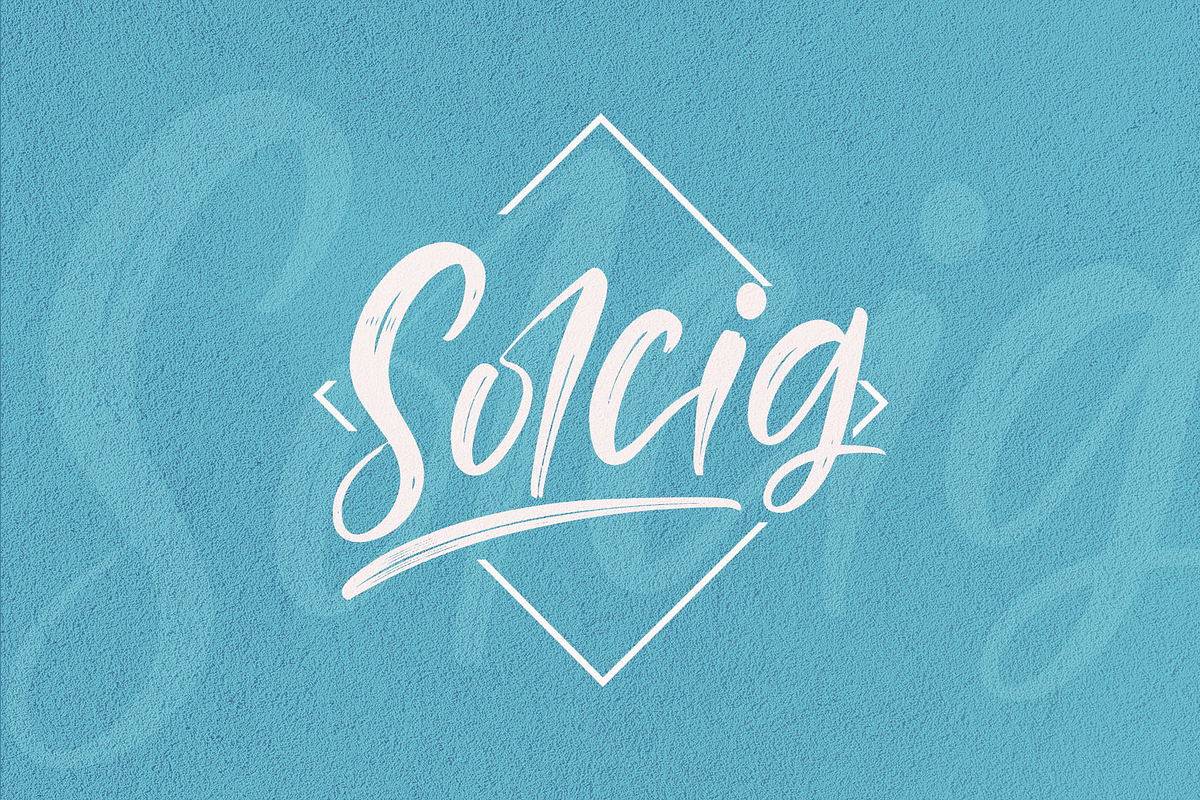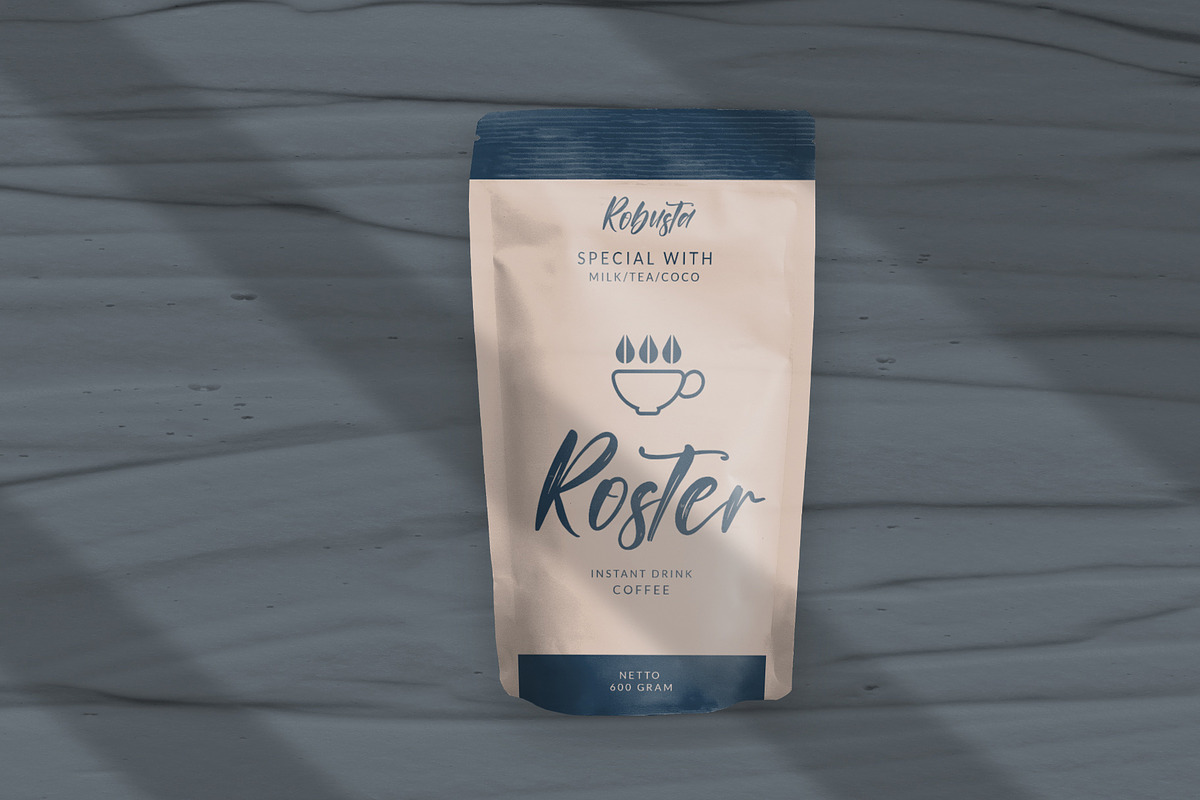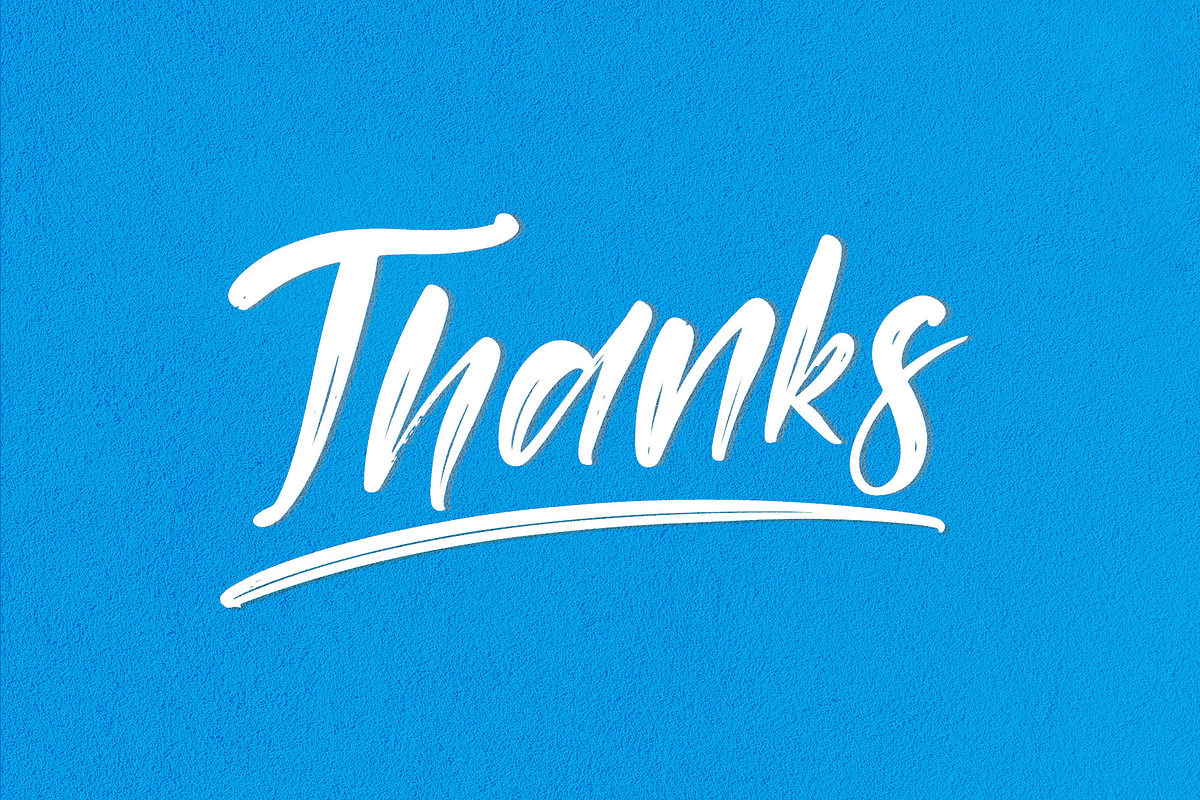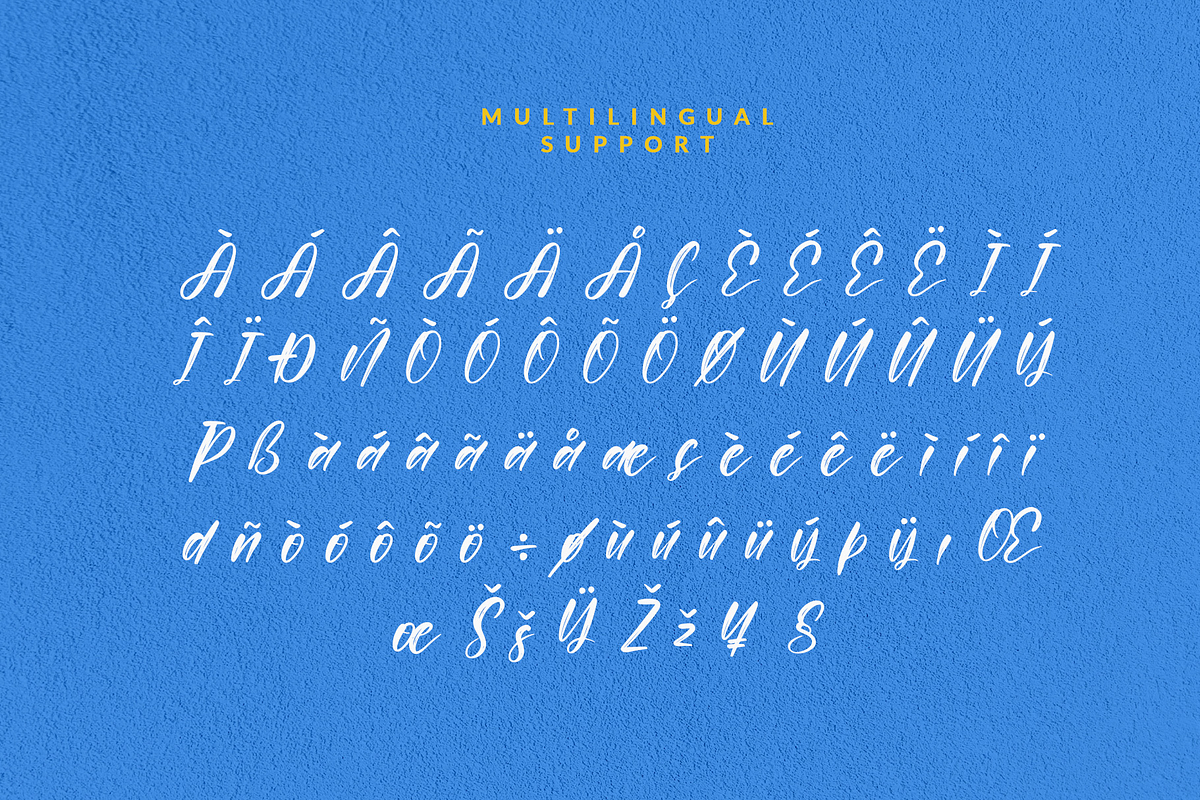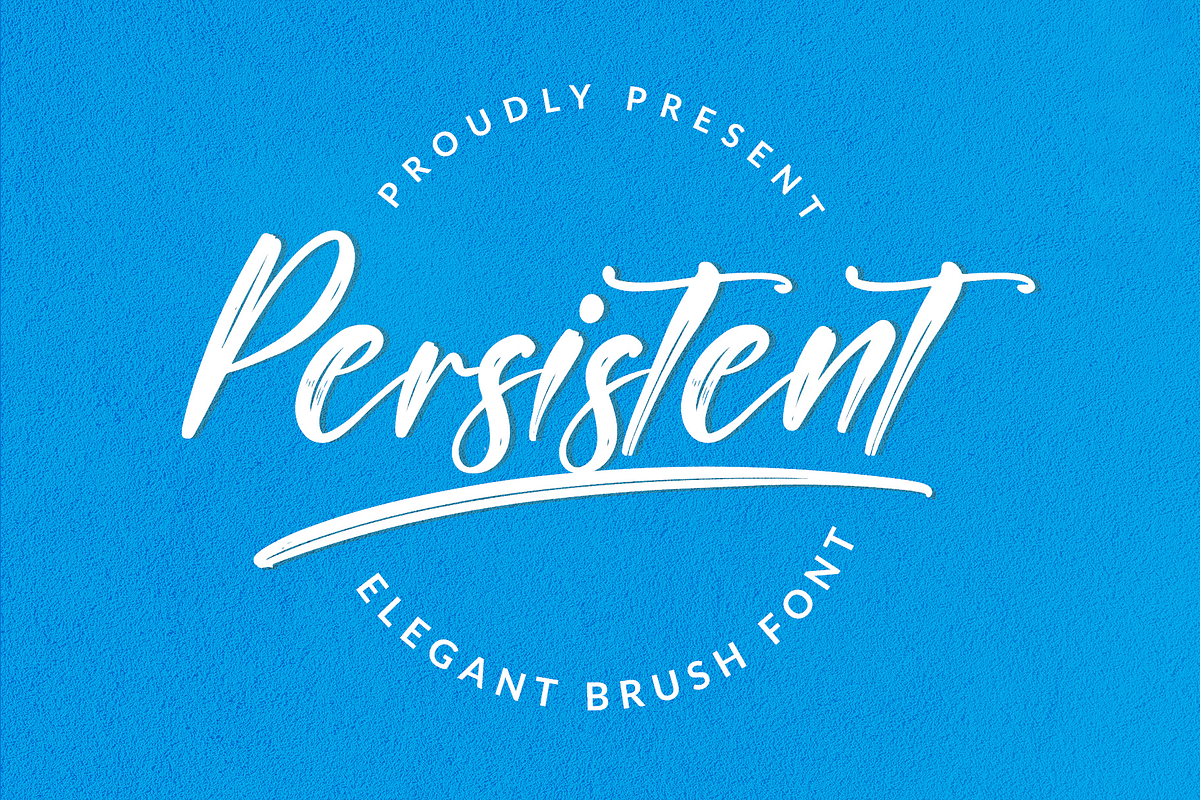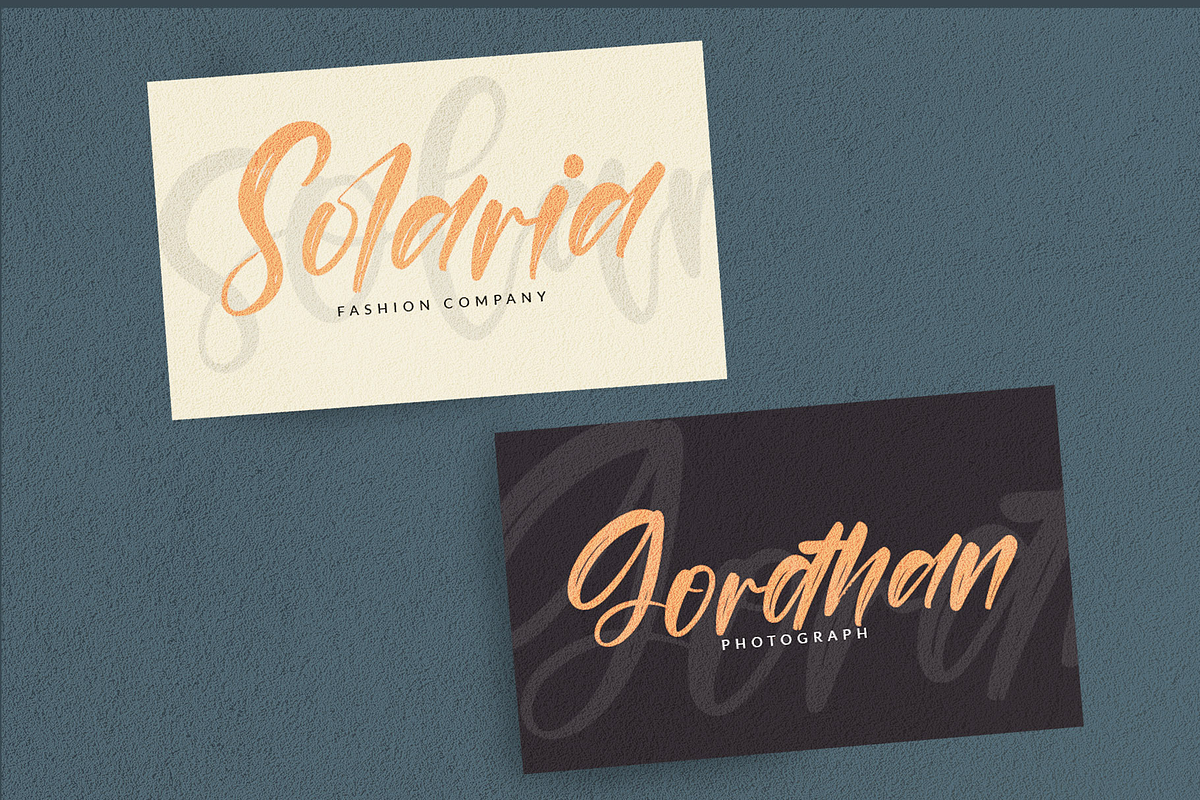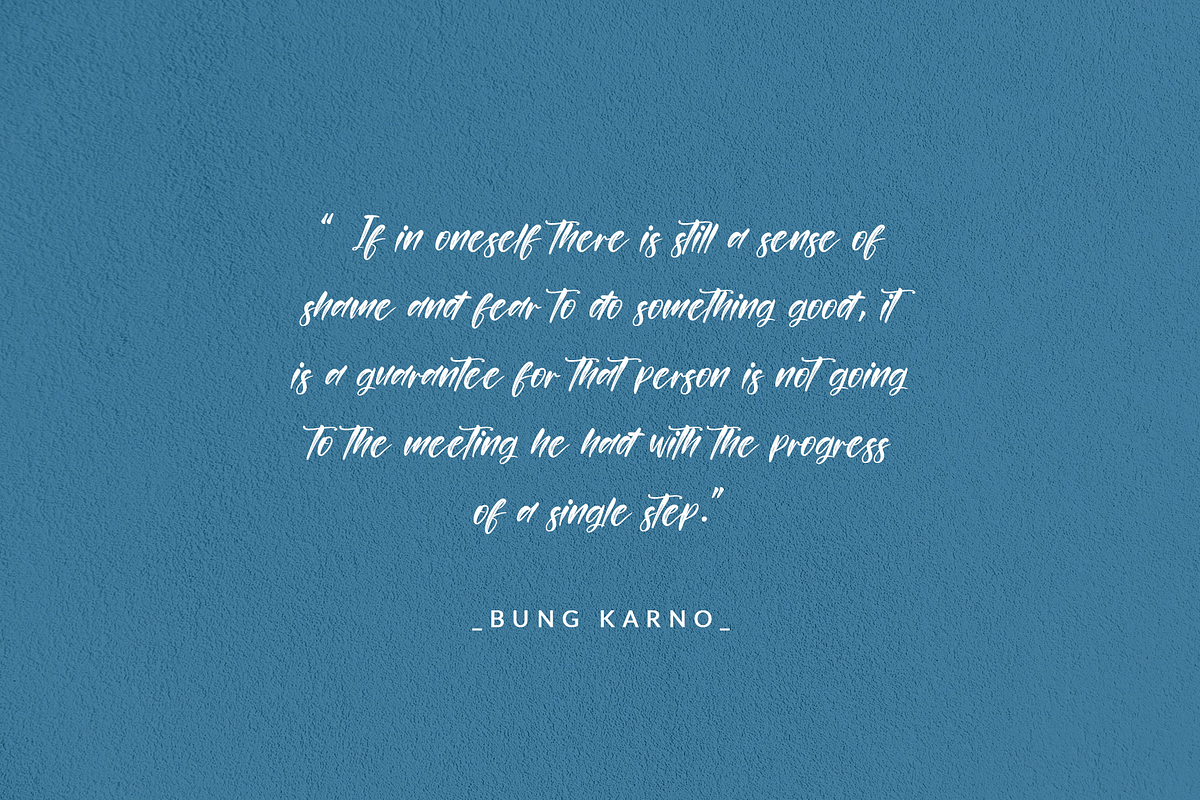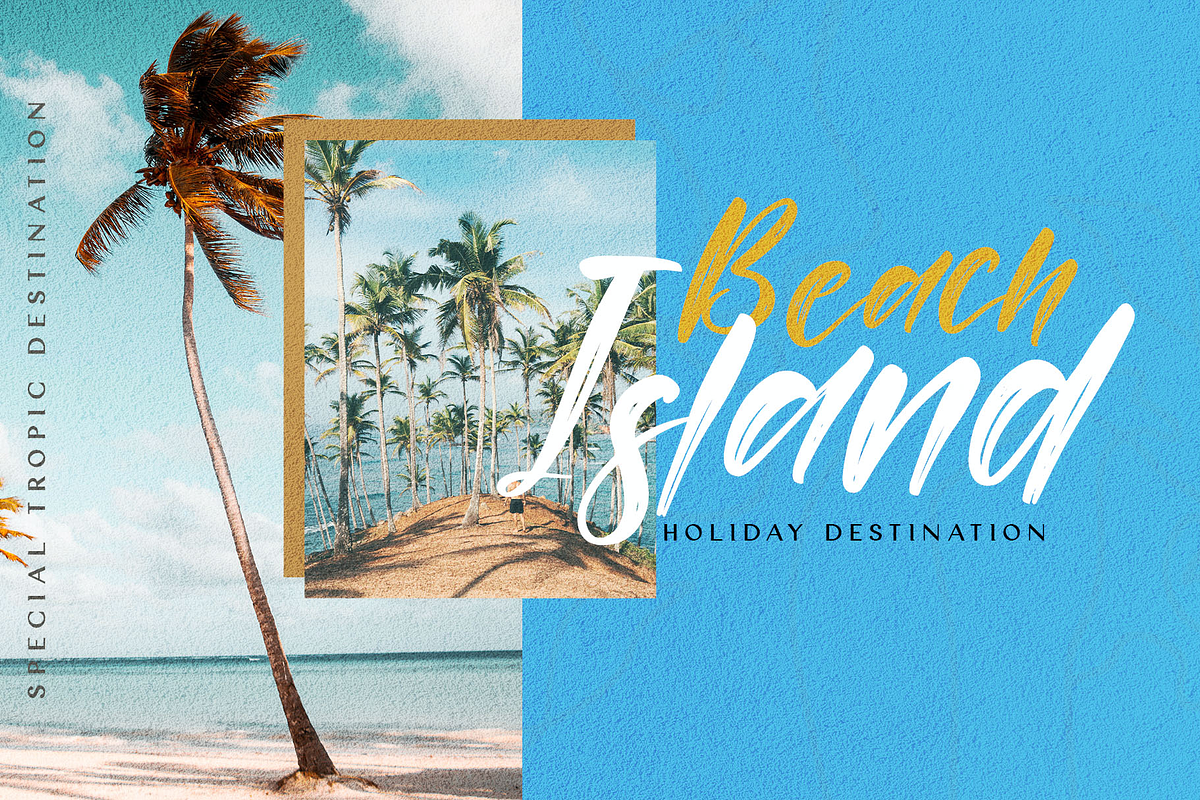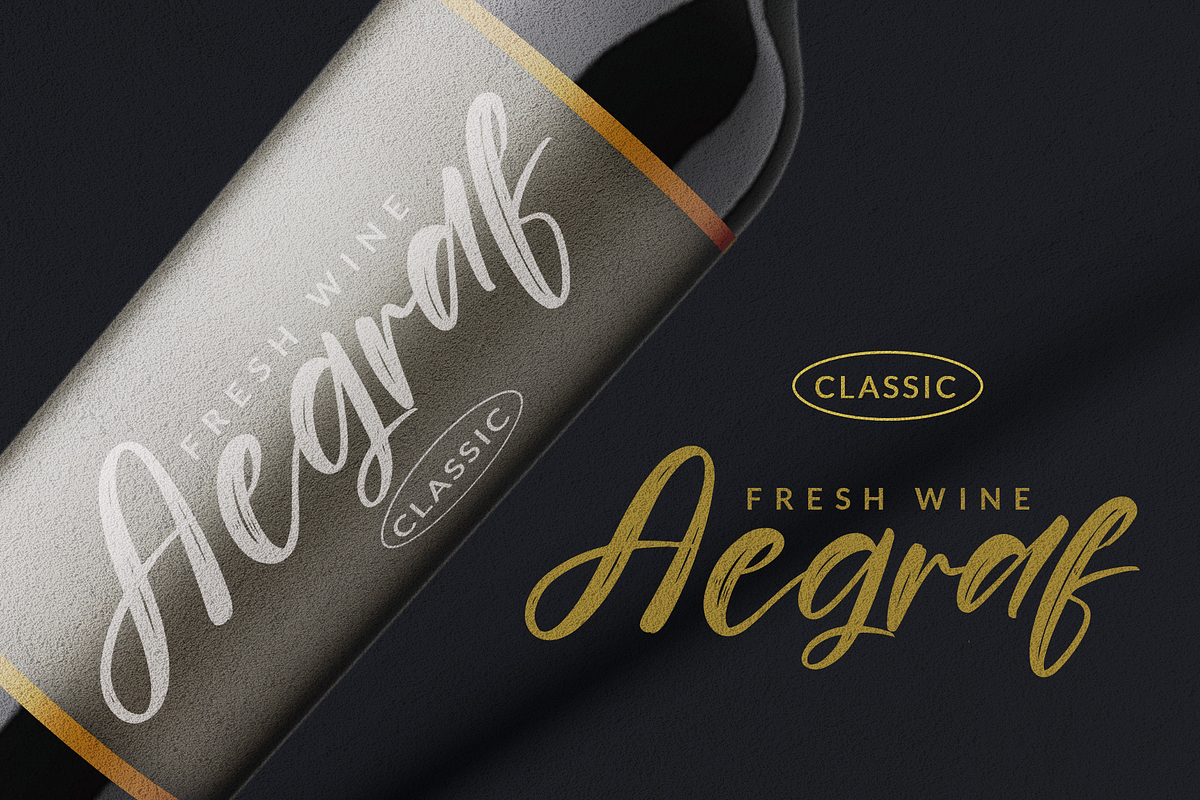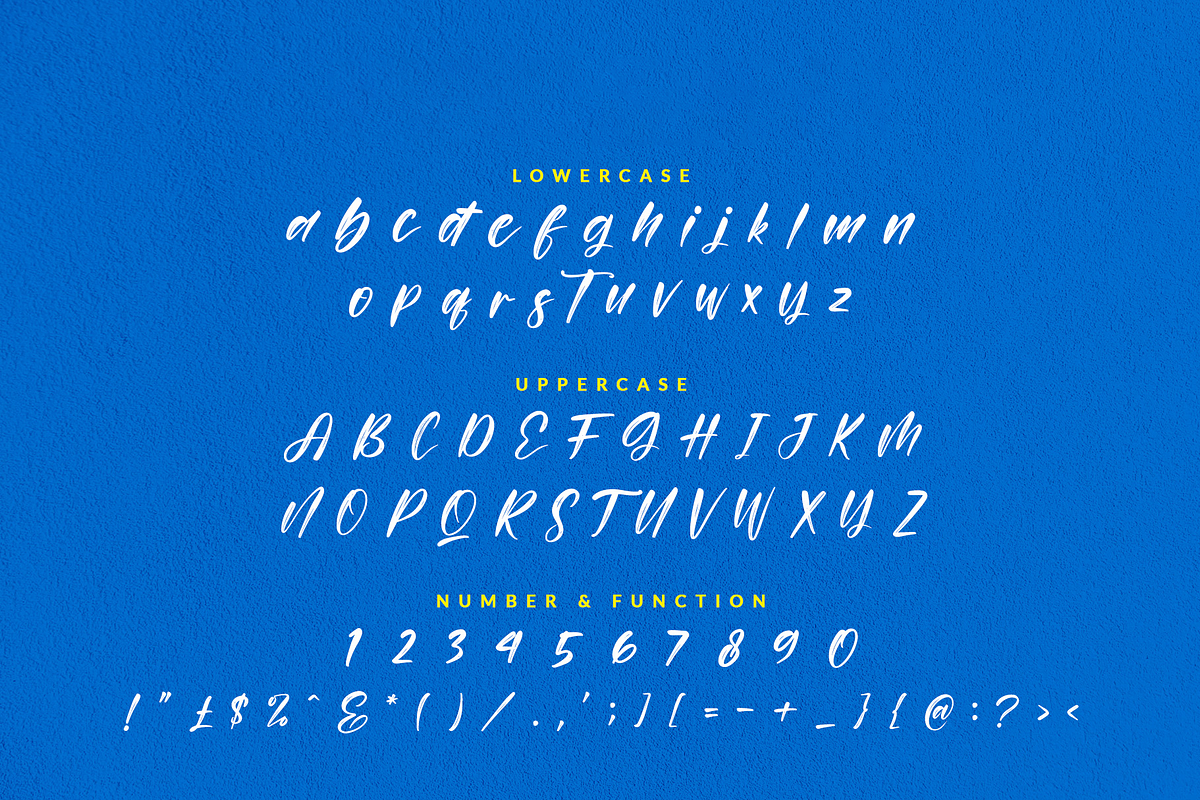
Persistent
Persitent is a stylish handwritten font. It will add a luxury spark to any design project that you wish to create! This font is PUA encoded which means you can access all of the amazing glyphs and ligatures with ease!